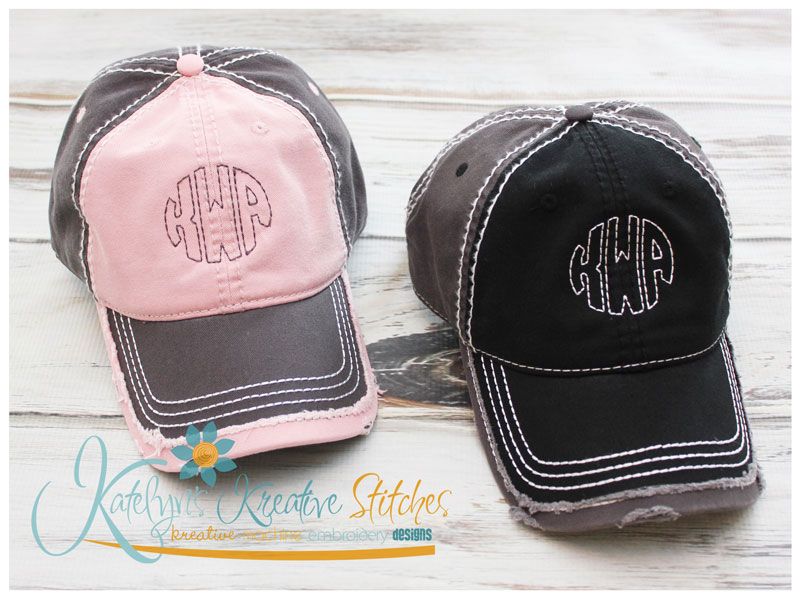
You'll absolutely love monogramming these cute Vintage Distressed Hats. These are Garment Washed Cotton Twill. They're perfect for those hot Summer months. We digitized our very own Circle Monogram Triple Stitch Font, specifically to match the heavy stitching and vintage look used on these hats.
Our Circle Triple Stitch Font is done in a bean stitch finish. We digitized it specifically to match these distressed hats. It will include the 2, 3, 4, 5 and 6 inch sizes. Please keep in mind that our fonts are manually digitized in proportion with each other. So the sizes are approximate. You'll receive all CAP Letters A-Z for the left, middle and right monogram letters.
Please note: This font is not an applique font. If you'd like to use fabric for a distressed look then you'll have to run the letter twice. The first run will be for fabric placement and the second would be for the tack down. Then trim your fabric for a distressed look.
**For the sample shown above, we used the 2 inch size for the hats.